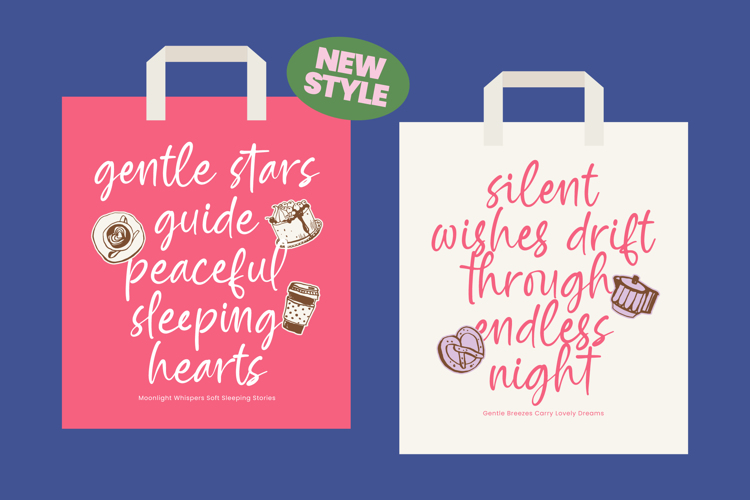
Silent Joy Font
Silent Joy - Modern Handwritten Font
Inject immediate warmth and personality into your designs. Silent Joy - Modern Handwritten Font offers a truly organic handwritten script aesthetic, perfectly balancing casual elegance with clear readability. Its fluid, sweeping curves emulate genuine penmanship, making it ideal for projects needing an authentic, human touch. This font provides a fresh, contemporary feel that elevates any creative endeavor beyond standard typography.
Unlock unparalleled creative flow with extensive OpenType features. Included within this comprehensive package are 118 unique ligatures and alternate characters, ensuring that text set in Silent Joy - Modern Handwritten Font never appears repetitive or machine-generated. This rich feature set guarantees dynamic variation and seamless connectivity between letters, providing a genuine bespoke feel. The Regular and Italic options further enhance its versatile capabilities for both heading and short body text applications.
Expand your reach and communicate globally without compromise. With its extensive multilingual support, Silent Joy - Modern Handwritten Font adapts seamlessly across global markets, making it incredibly versatile for international projects. This global compatibility ensures your message maintains its intended warmth and professional polish, regardless of language. Its meticulously crafted characters are optimized for flawless display across all platforms, confirming its status as a reliable, professional asset.
Perfect for projects demanding heartfelt originality and charm. Silent Joy - Modern Handwritten Font is the ultimate choice for boutique branding, wedding invitations, product packaging, and personal stationery. It is perfect for designers looking to infuse energy into social media graphics, greeting cards, or editorial titles that require a signature aesthetic. Invest in this typeface today to guarantee your work resonates with genuine style and memorable distinction.